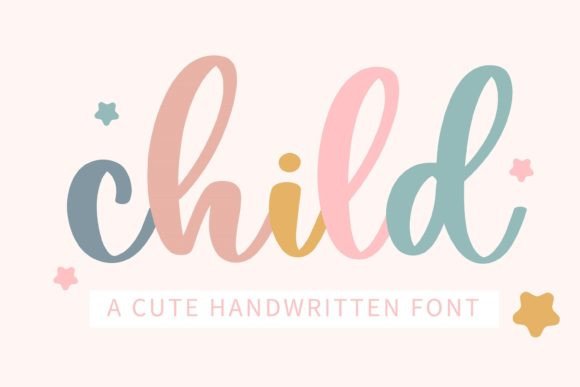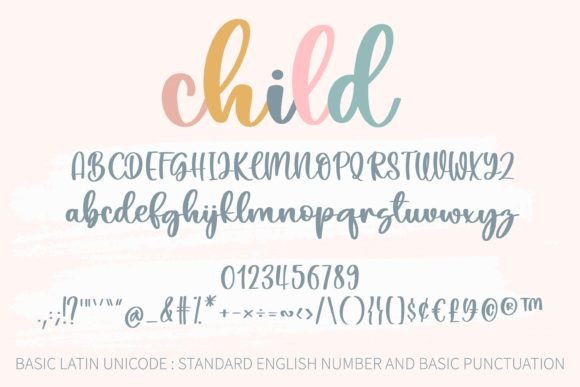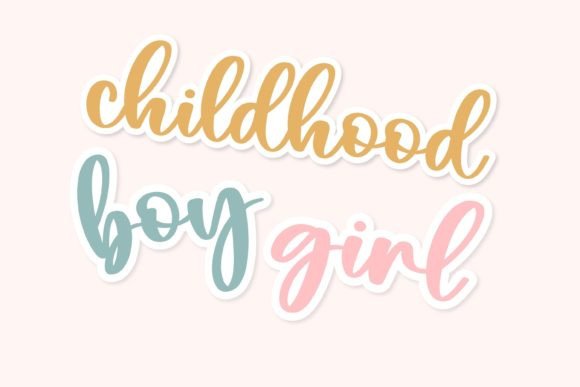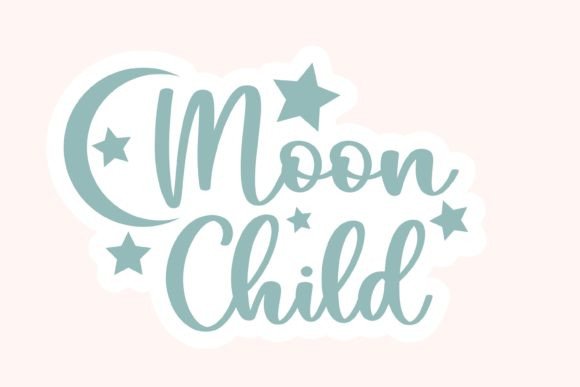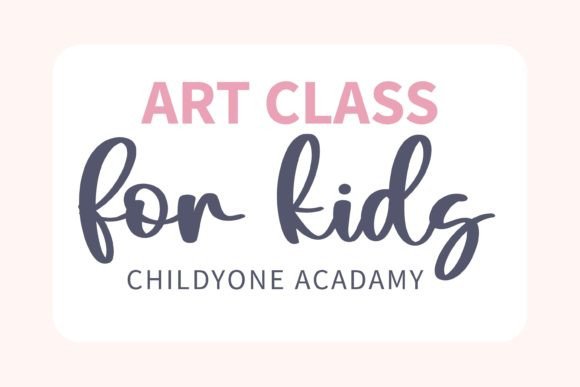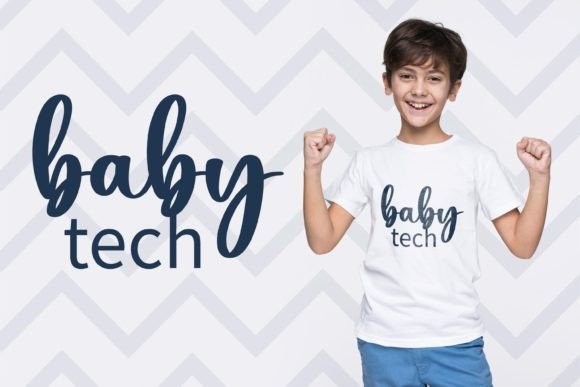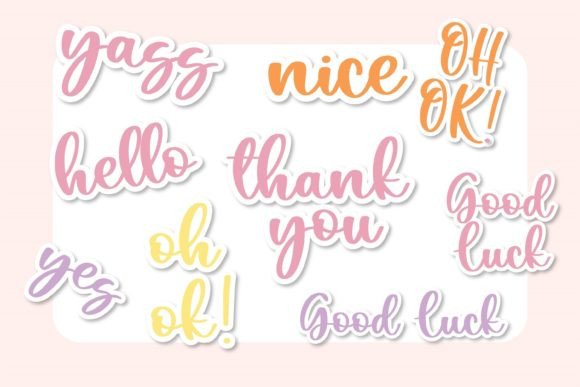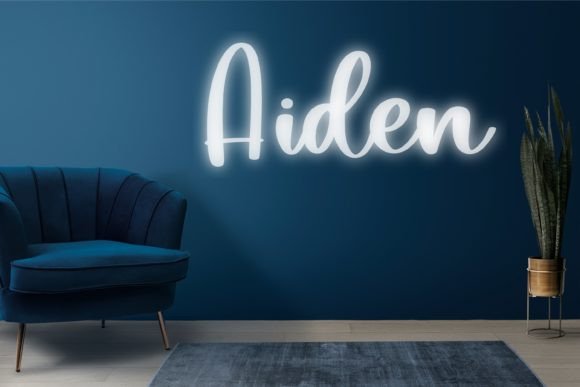
Child Font
About Child Font
“Child” is more than just a font; it’s a sweet and cute handwritten typeface that captures the essence of innocence and charm. Fall in love with its incredibly versatile style, and let it be the creative tool that brings a delightful touch to your projects. From gorgeous wedding invitations to beautiful stationary art and eye-catching social media posts, “Child” is designed to infuse a sense of sweetness and cuteness into a wide range of designs.
The sweet and cute qualities of “Child” make it an ideal font for projects that require a touch of innocence and playfulness. Whether you’re working on wedding invitations, stationary art, or social media content, this font adds a delightful and charming character to your text.
Imagine “Child” gracing your wedding invitations, contributing to a design that feels heartwarming and endearing. The handwritten style of the font enhances the personal and intimate nature of wedding stationery, creating a truly special invitation.
For stationary art, “Child” becomes a charming element that adds a playful touch to cards, notes, and other paper goods. Its cute handwritten script brings a sense of joy to every piece of stationary.
In the realm of social media, “Child” stands out as a font that adds a cute and eye-catching element to posts and graphics. Whether you’re sharing messages, quotes, or announcements, this font adds a touch of whimsy and charm.
The versatility of “Child” extends to various creative projects, making it a font that adapts to your design needs. Let it be the choice for creating cute and delightful designs that resonate with the theme of innocence.
Let “Child” be the sweet and cute handwritten font that brings a smile to your designs, making them truly special and memorable. Embrace its versatility, and allow it to add a touch of charm to your wedding invitations, stationary art, social media posts, and beyond.